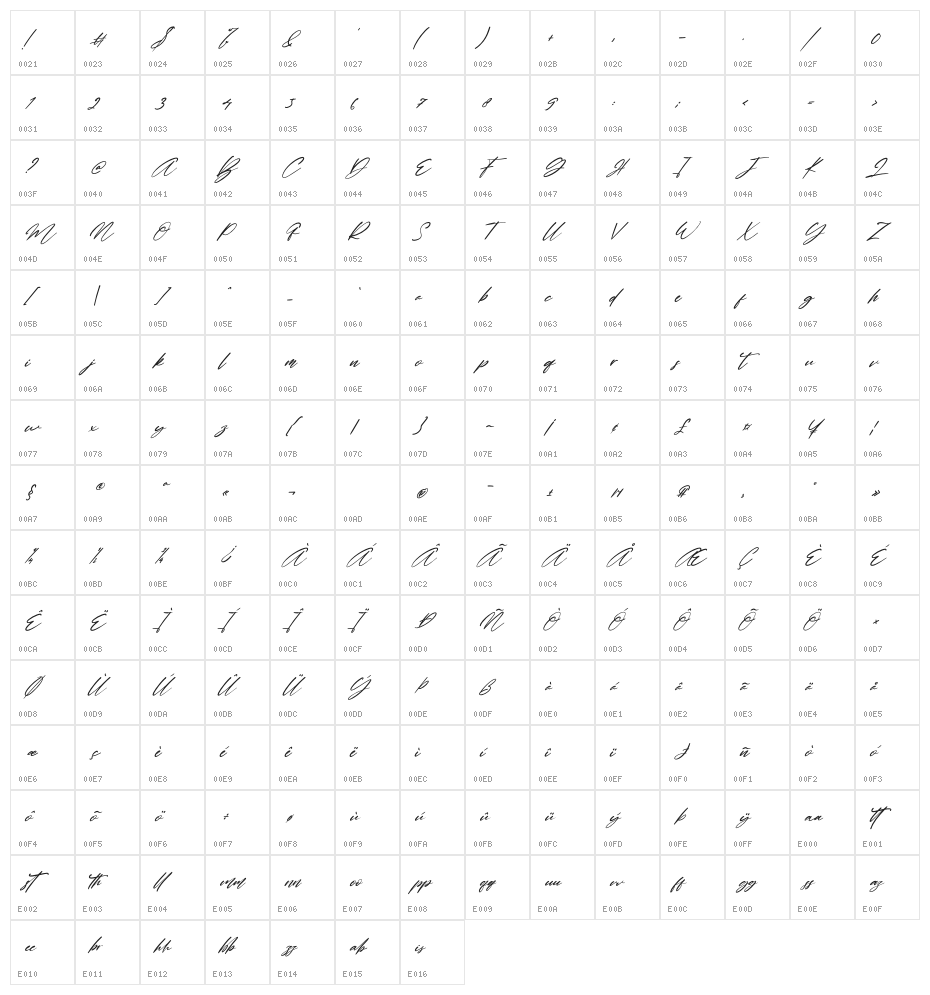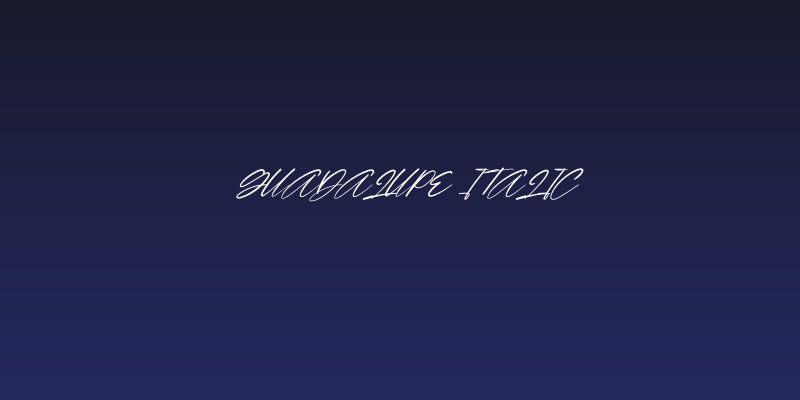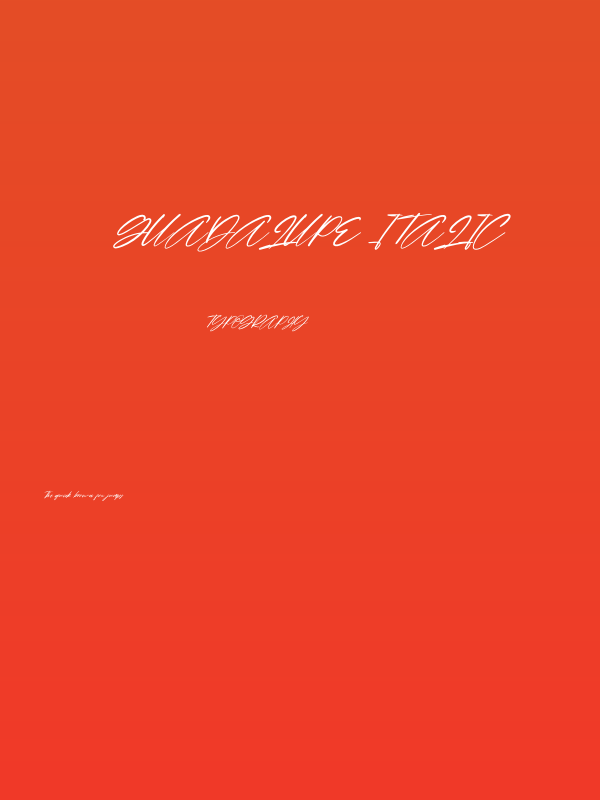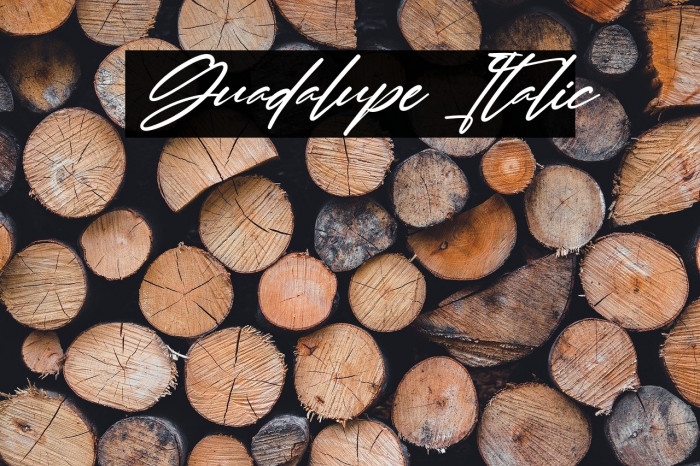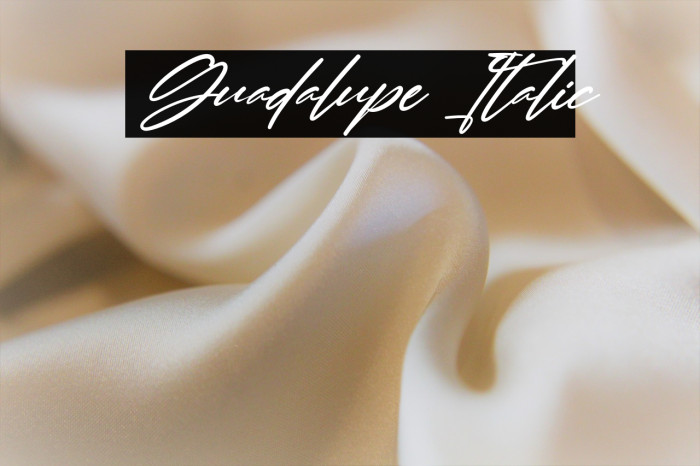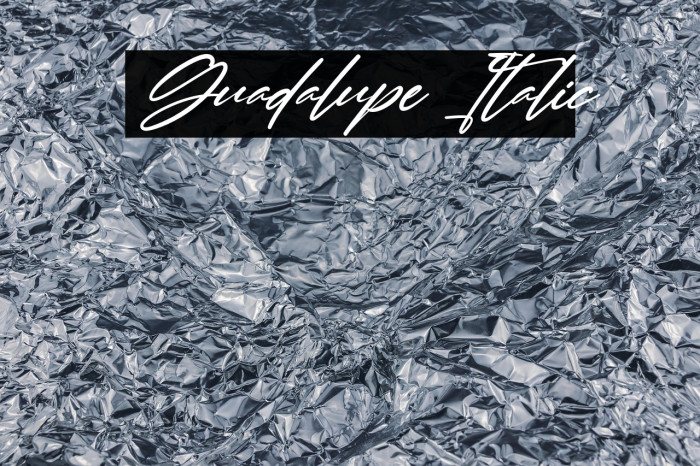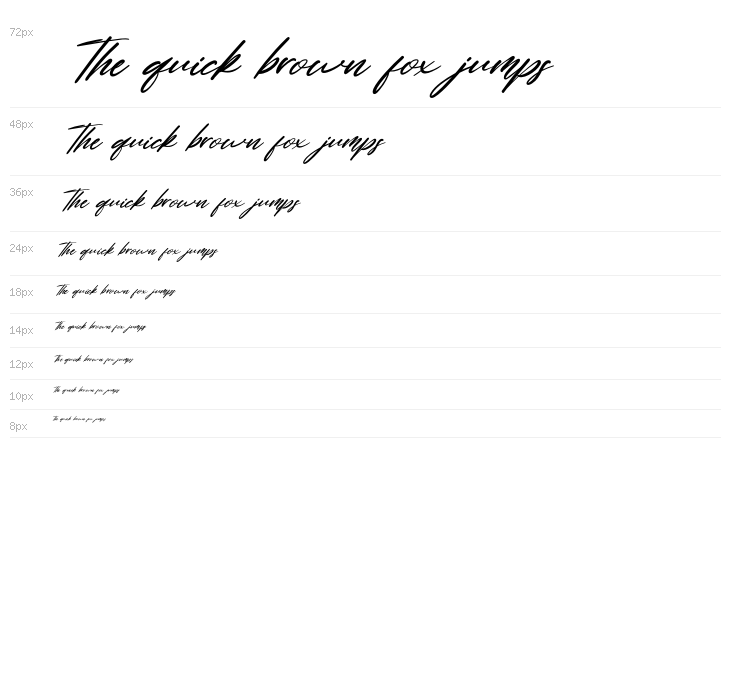
Guadalupe Italic Font
Guadalupe Italic Description
This font exudes a sophisticated and elegant style, characterized by its flowing, cursive script. The letters are connected in a seamless manner, giving it a handwritten appearance that is both graceful and dynamic. The uppercase letters are bold and prominent, while the lowercase letters maintain a consistent flow, enhancing readability. The numerals and special characters are designed to complement the overall aesthetic, maintaining the same fluidity and elegance. This font is perfect for projects that require a touch of class and personal flair.
| Overall Style | Elegant, Handwritten |
| Proposed Projects | Ideal for wedding invitations, elegant branding, personal stationery, and artistic projects. |